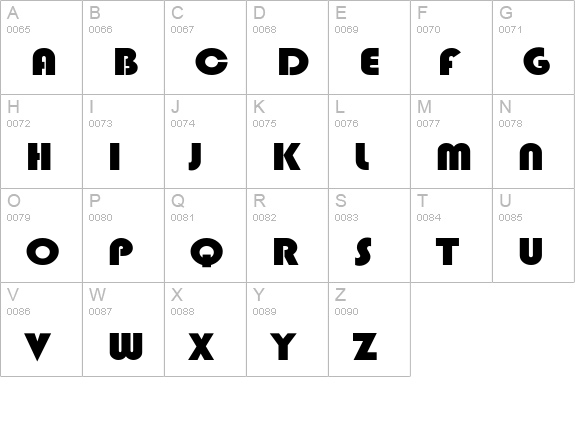
BlippoExt-Heavy Font Details
BlippoExt-Heavy is a heavy, high-impact variant in the BlippoExt typeface family \xE2\x80\x94 well suited to high-impact headlines, posters, and display advertising.
BlippoExt-Heavy font is a bold and eye-catching typeface that exudes a sense of strength and modernity. Its thick, rounded letters make a powerful statement and are perfect for headlines, posters, and branding projects. The heavy weight of the font adds impact and ensures that your message will not go unnoticed. What's even better is that BlippoExt-Heavy font is available for free download at FontsMarket.com. This means you can easily access and use this striking font in your design projects without any cost. Don't miss out on the opportunity to enhance your designs with this impactful typeface that is both stylish and attention-grabbing. Download BlippoExt-Heavy font today and make a bold statement with your typography.